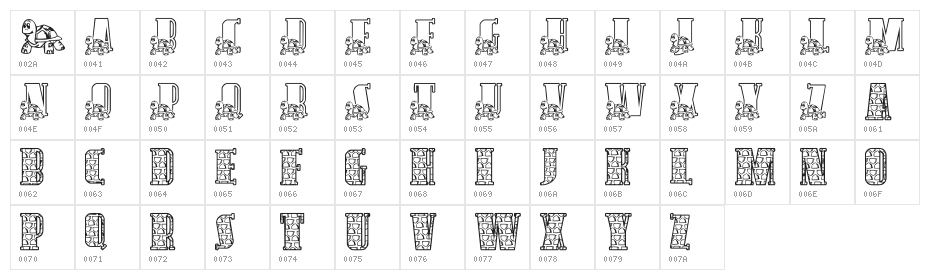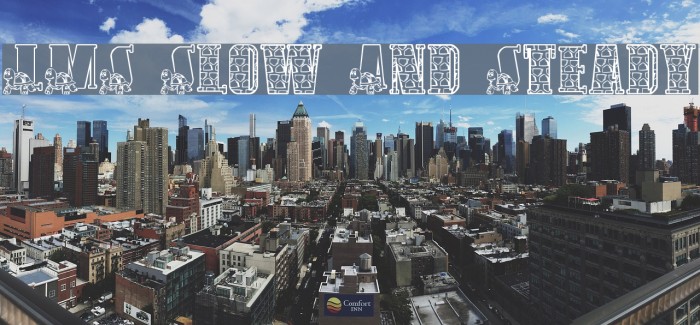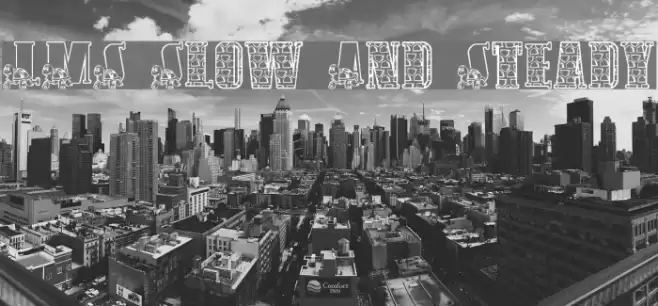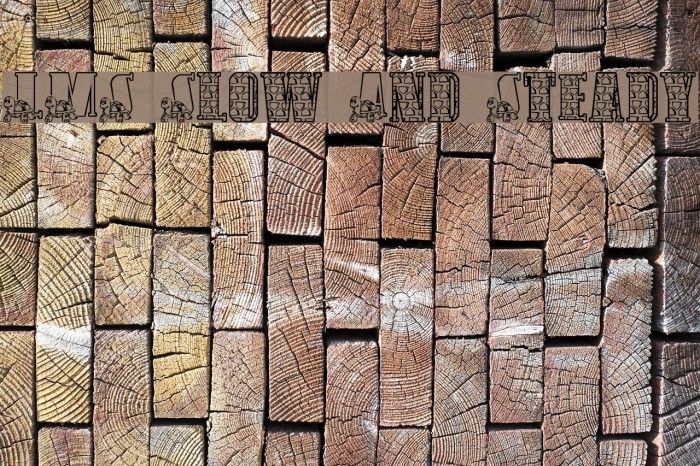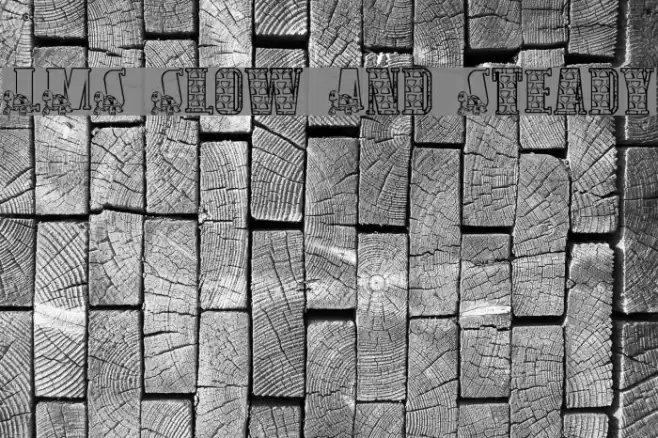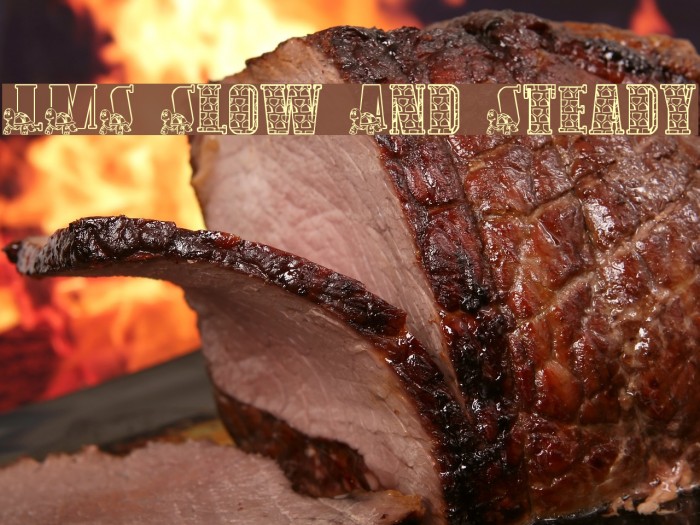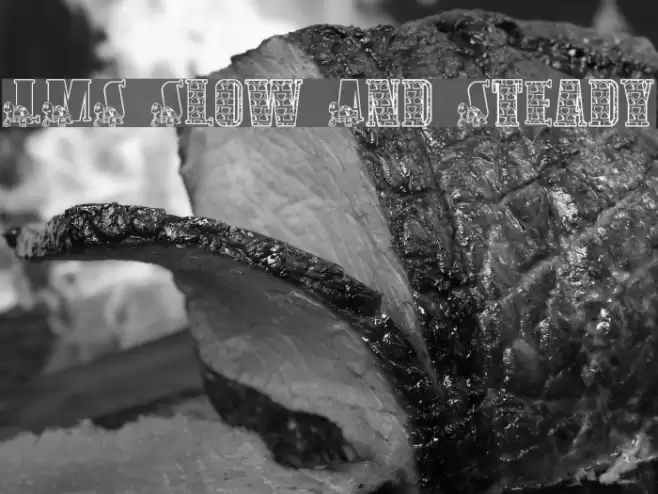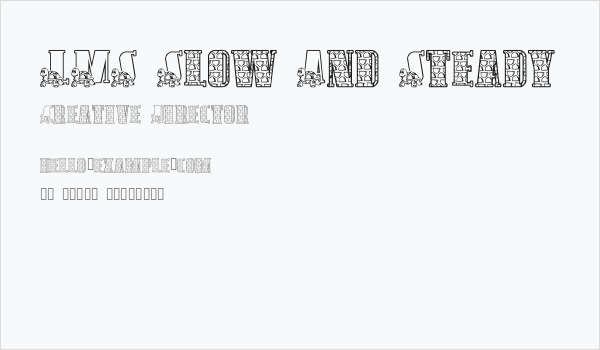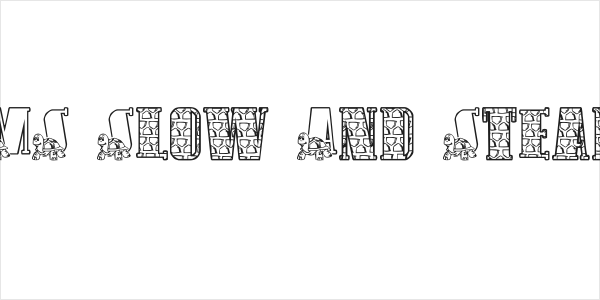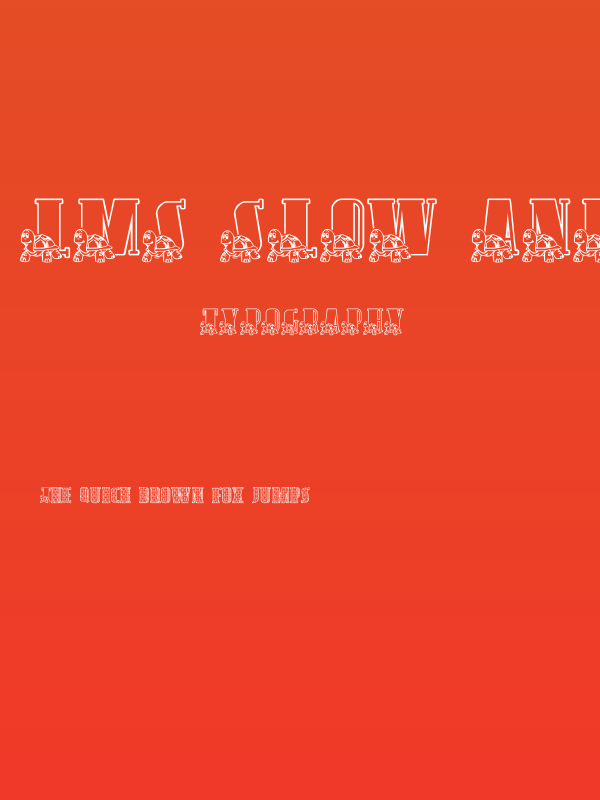
LMS Slow And Steady Font
LMS Slow And Steady Description
This playful and whimsical font features a unique design where each letter is creatively integrated with a turtle motif. The letters are bold and decorative, with intricate patterns resembling turtle shells, adding a sense of fun and creativity. The font is highly detailed, making it ideal for projects that require a touch of humor and charm. Its distinctive style makes it stand out, perfect for children's books, playful branding, or any project that aims to capture attention with a lighthearted theme.